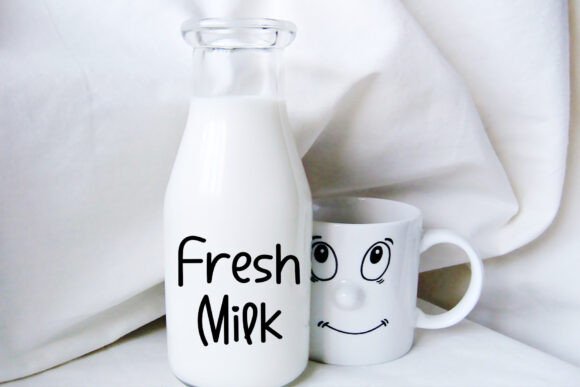
Introducing Arfan Font: The Ultimate Elegance for Your Projects
In the world of typography, fonts play a crucial role in conveying the tone and style of any project. Whether you’re working on a wedding invitation, a birthday card, or a school assignment, the right font can make all the difference. That’s where Arfan Font comes in – a unique and elegant font designed specifically for you. In this article, we’ll explore the features and benefits of Arfan Font and why it’s the perfect choice for your creative projects.
What is Arfan Font?
Arfan Font is a professionally crafted font that boasts a distinctive and refined style. Created with a hand touch, this font exudes elegance and sophistication, making it ideal for a wide range of applications. From wedding invitation cards to birthday greetings, and from school assignments to party invitations, Arfan Font is the perfect choice for anyone looking to add a touch of class to their projects.
Key Features of Arfan Font
- Unique and Elegant Design: Arfan Font features a one-of-a-kind design that sets it apart from other fonts. Its elegant style makes it perfect for projects that require a touch of sophistication.
- Professional Hand Touch: The font is crafted with a professional hand touch, ensuring that every letter and glyph is meticulously designed to provide a seamless reading experience.
- Versatile: Arfan Font is suitable for a wide range of projects, including wedding invitations, birthday cards, school assignments, and party invitations.
Benefits of Using Arfan Font
So, why choose Arfan Font for your projects? Here are just a few benefits of using this exceptional font:
- Adds Elegance to Your Projects: Arfan Font’s unique and elegant design adds a touch of sophistication to any project, making it perfect for special occasions.
- Enhances Readability: The font’s professional hand touch ensures that every letter is clear and easy to read, making it perfect for projects that require a high level of readability.
- Versatile and Flexible: Arfan Font can be used in a wide range of projects, from formal to informal, making it a great addition to your font library.